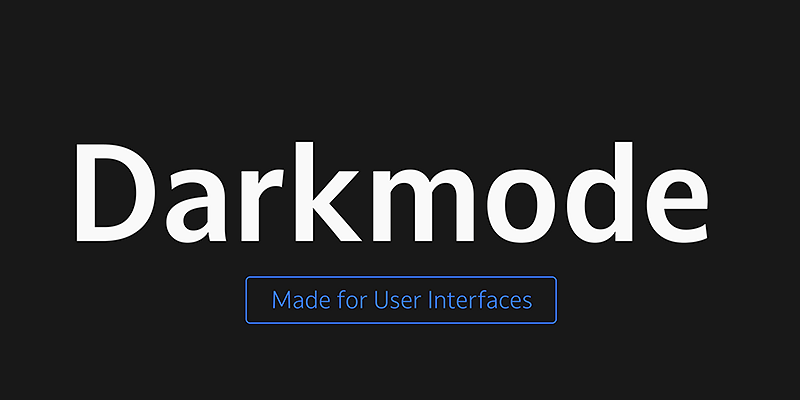
Darkmode Off Font Free Download is a bold, futuristic sans-serif typeface that’s perfect for digital-first designs. With its clean lines, sharp edges, and modern appeal, this font is ideal for UI/UX interfaces, tech branding, gaming content, and minimalist layouts that need a sleek, contemporary vibe.
Designed to stand out on both light and dark backgrounds, Darkmode Off brings clarity and style to your typography. It’s highly legible at various sizes, making it a smart choice for mobile apps, website headers, social media graphics, and futuristic product packaging. Darkmode Off Font Free Download is a favorite among designers who want to strike the balance between innovation and simplicity.
Its versatility means you can use it as a primary display font or pair it with more neutral text fonts for a balanced design. The geometric feel of Darkmode Off gives it a cutting-edge look without losing usability—great for tech startups, content creators, or digital product designers.